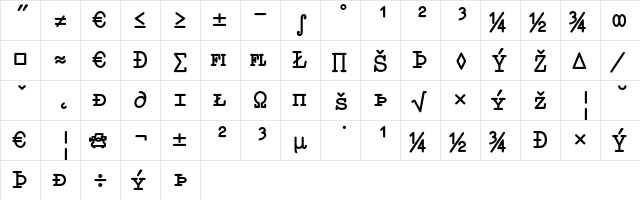
Elementa SC-Expert Bold
Design Context for Elementa SC-Expert Typeface
Elementa SC-Expert takes a measured approach to typography — its balanced proportions and neutral character make it a reliable workhorse for both digital and print work. Its bold stroke weight gives it real presence on the page.